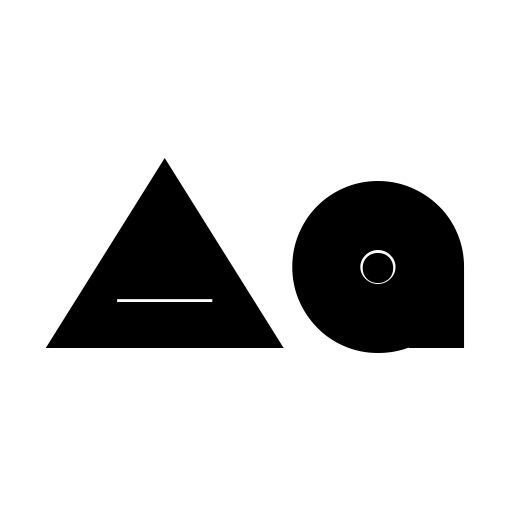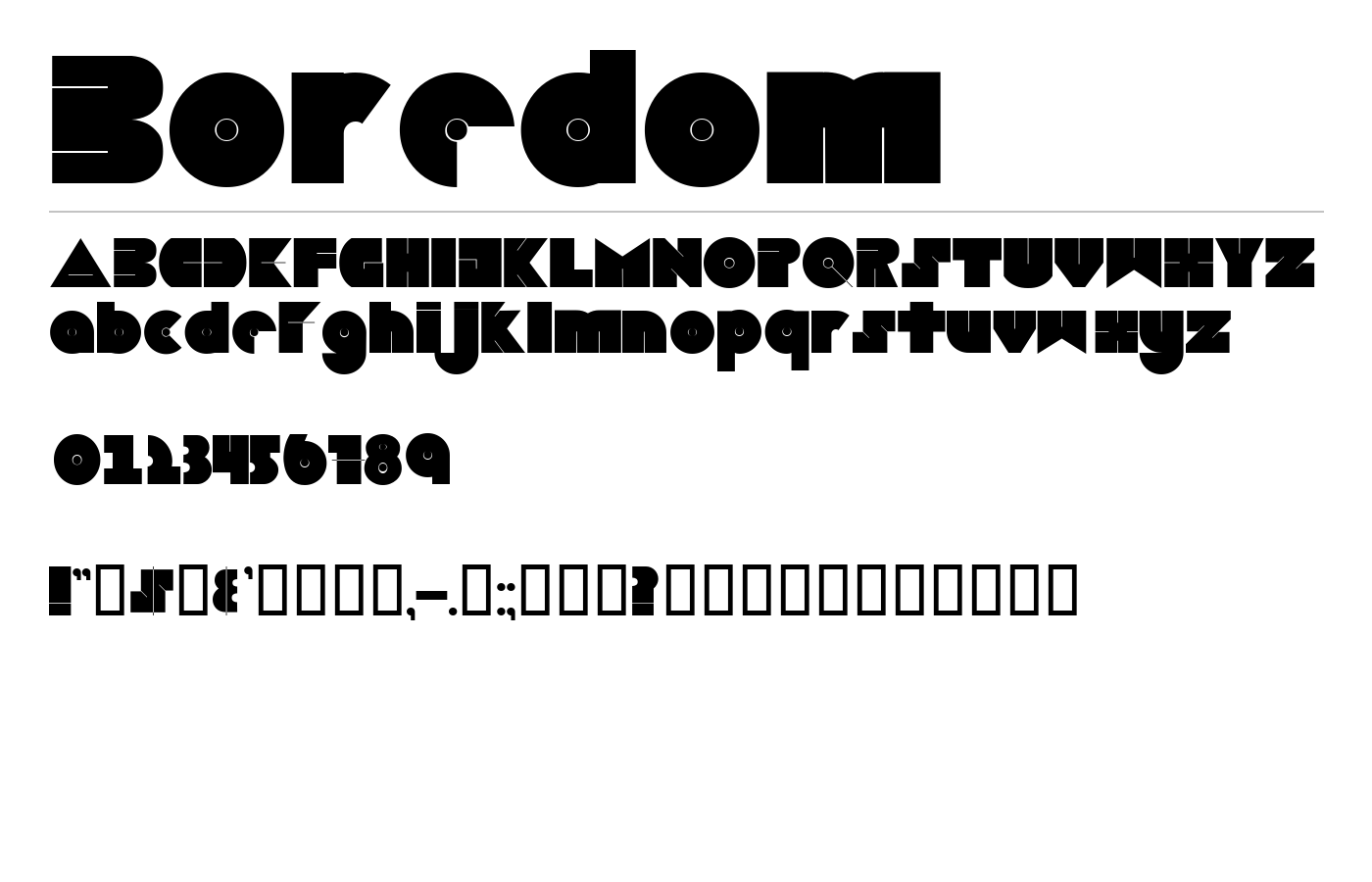
Boredom Font is a bold, geometric sans serif with a strikingly heavy weight and a strong presence. Its solid, blocky shapes and unique angular cuts create a modern, futuristic vibe, making it ideal for eye-catching headlines, posters, and branding that demands a playful yet confident look. This font works best where a bold statement is needed, especially in creative, artistic, or tech-oriented designs.
Boredom Font
About Boredom Font